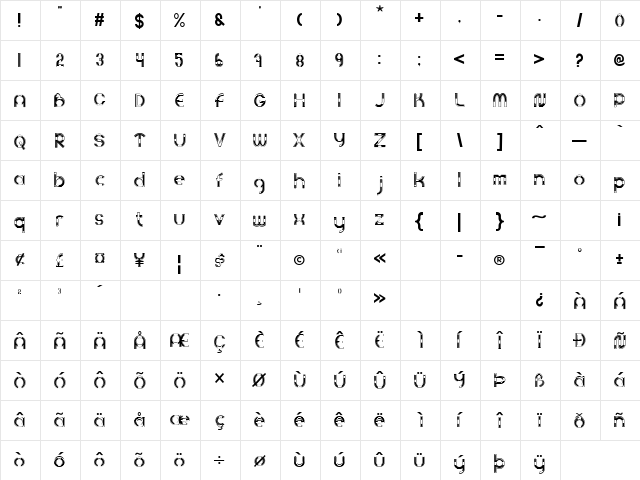
People 4.o Regular
| Designer | Wildan Suprian Syah |
Design Context for People 4.o Typeface
People 4.o takes a measured approach to typography — its balanced proportions and neutral character make it a reliable workhorse for both digital and print work.